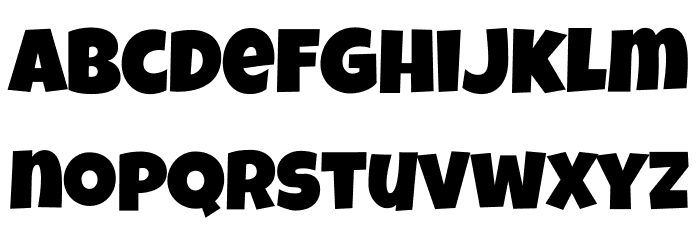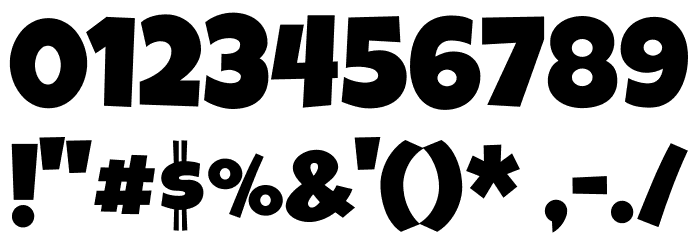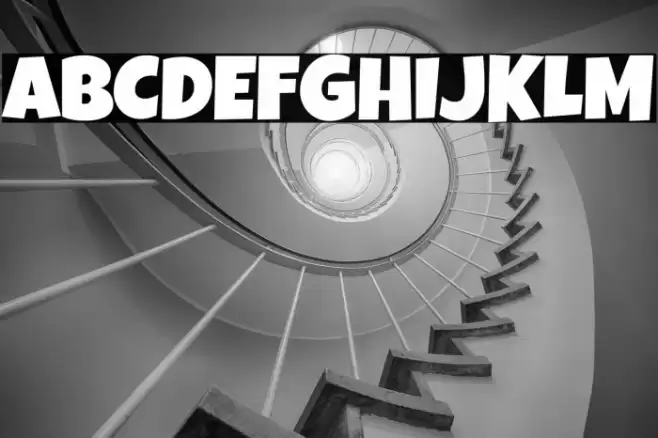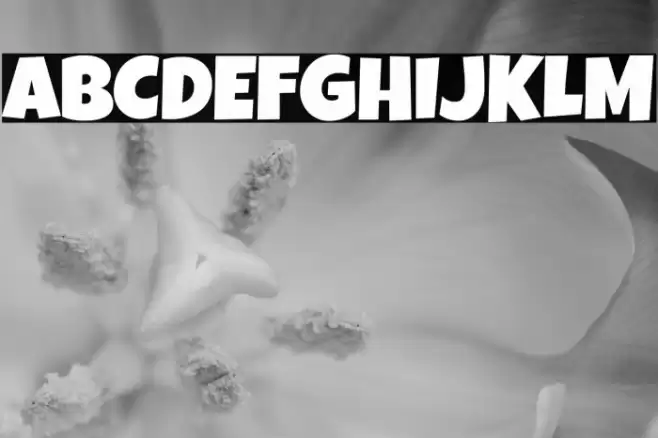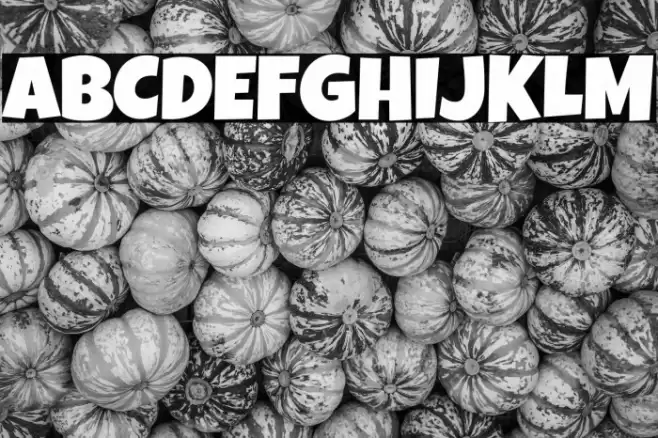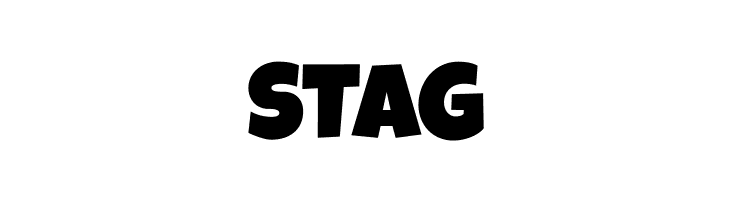
Luckiest Guy Font
This playful and bold font exudes a sense of fun and energy, with its thick, rounded letterforms and slightly irregular shapes. The characters are designed with a cartoonish flair, making them perfect for capturing attention and conveying a lively, informal tone. The uppercase and lowercase letters maintain a consistent style, with a slight tilt that adds to the dynamic feel. The numbers and special characters are equally bold and expressive, ensuring a cohesive look across all text elements.
A bold, playful font with rounded, cartoonish letterforms.
- Font: Luckiest Guy
- Proposed Projects: Ideal for children's books, comic strips, playful branding, and event posters.
- Overall Style: Playful, Cartoonish